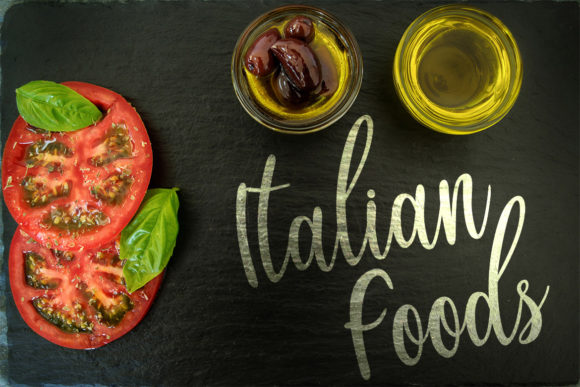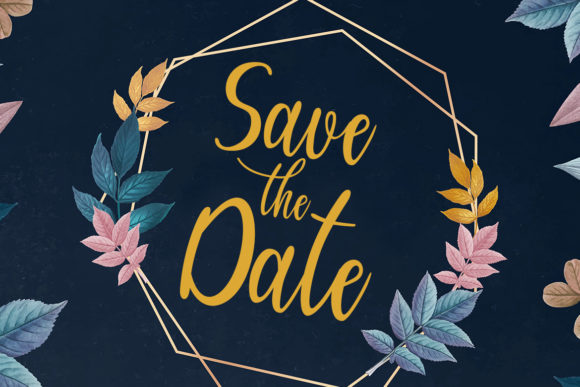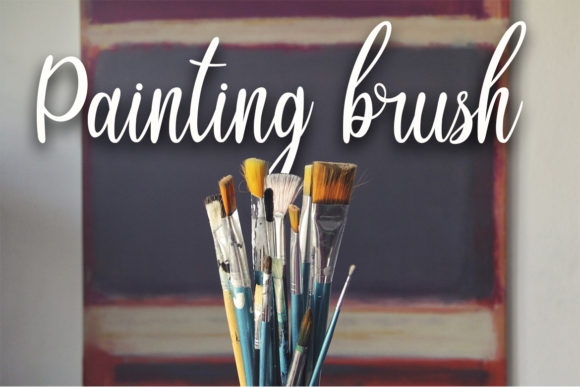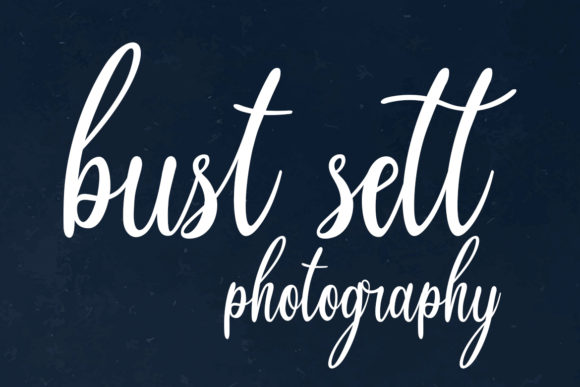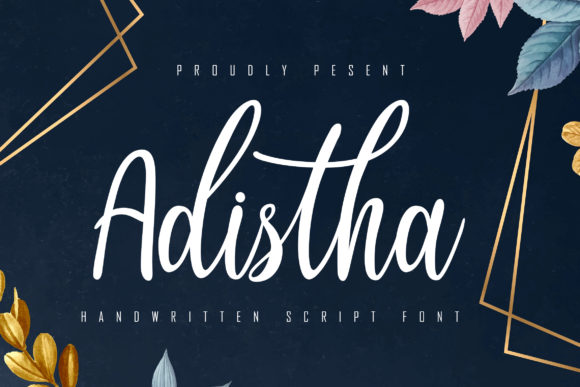
The Charm of Adistha Font: Elevate Your Designs with Elegance
I’ll never forget the time I was working on a wedding invitation project, and my client asked for a font that exuded classic elegance with a touch of modern charm. I scoured the internet, tried out countless fonts, but nothing seemed quite right. That was until I stumbled upon Adistha Font. Its beautiful, handwritten strokes instantly captured the essence of what my client was looking for. In this article, I’ll share with you why Adistha Font has become a staple in my design toolkit and how you can make the most of its stunning features.
A Personal Review of Adistha Font
- ✨ Authentic Feel: Adistha Font has an authentic, handwritten feel that makes it perfect for creating wedding invitations, beautiful stationery art, eye-catching social media posts, and cute greeting cards.
- ✅ Elegant and Charming: The font’s classic calligraphy style adds a touch of sophistication to any design project.
- 💫 Versatile: Whether you’re working on digital or print projects, Adistha Font adapts seamlessly.
While Adistha Font is incredibly versatile and beautiful, there are a few things to keep in mind:
- ⚠️ Legibility at Small Sizes: Like many script fonts, Adistha can get a bit tricky to read at very small sizes. It’s best used at larger sizes where its details can shine.
- 🤔 Pairing with Other Fonts: Due to its distinctive style, Adistha works best when paired with simpler fonts. Experiment with different combinations to find the perfect balance.
The Story Behind Adistha Font
Adistha Font was inspired by the beauty of traditional calligraphy. Its creator aimed to capture the elegance and charm of handwritten scripts in a digital format. The result is a font that feels both timeless and contemporary, perfect for designers looking to add a touch of sophistication to their work.
| Font Name | Adistha Font |
| Author | Skiiller Studio |
Q: Is Adistha Font suitable for body text?
A: While Adistha Font is beautiful, it’s primarily designed for headings and short texts. For body text, consider using a more straightforward font for better readability.
Q: Does Adistha Font include any special features?
A: Yes, Adistha Font comes with a range of OpenType features, including stylistic alternates and glyphs, which can be accessed in compatible software.